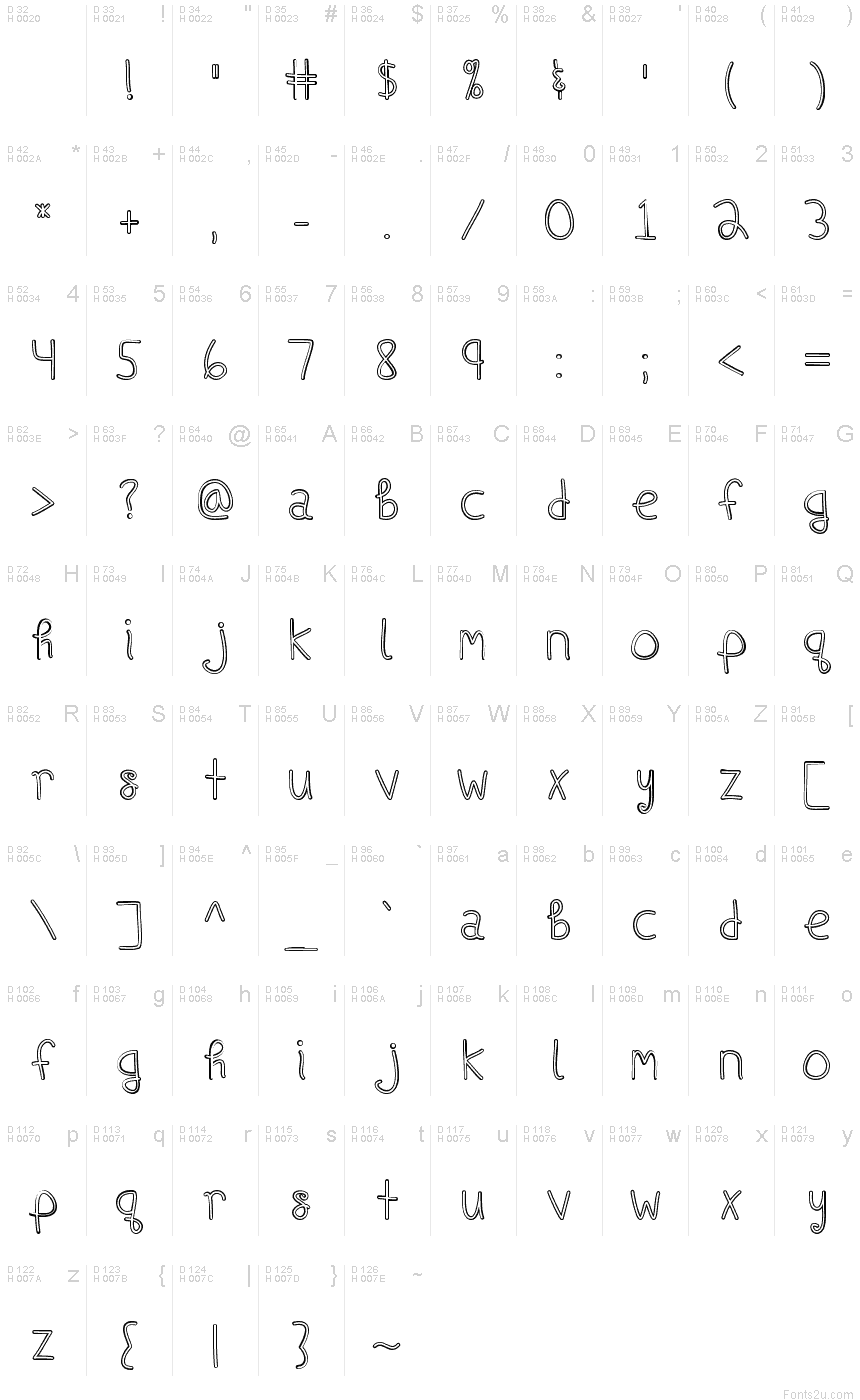
Ships in The Night (Outline) by Misti Hammers of Misti's Fonts is a free outlined display font with loose, hand-drawn letterforms and narrow hollow strokes. Rounded curves and uneven proportions keep the lettering cheerful and informal.
Children's book covers are its strongest setting, since the looping shapes and open interiors resemble playful marker lettering and can turn a title into part of the illustration. That same easygoing drawing style also suits snack packaging, party invitations, and classroom posters, particularly for projects built around crafts, games, school activities, or friendly children's entertainment, where its loose loops echo doodles and simple line drawings.